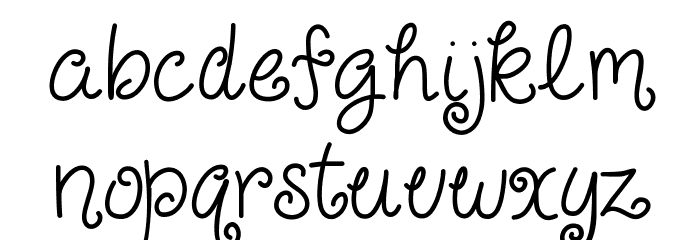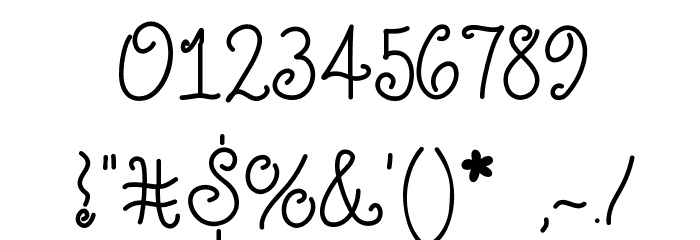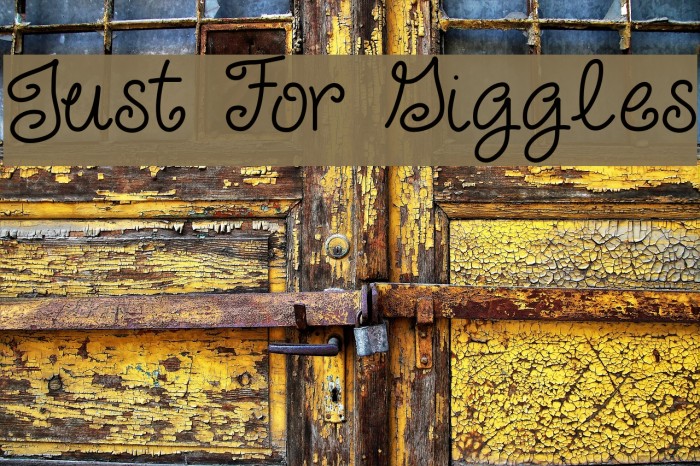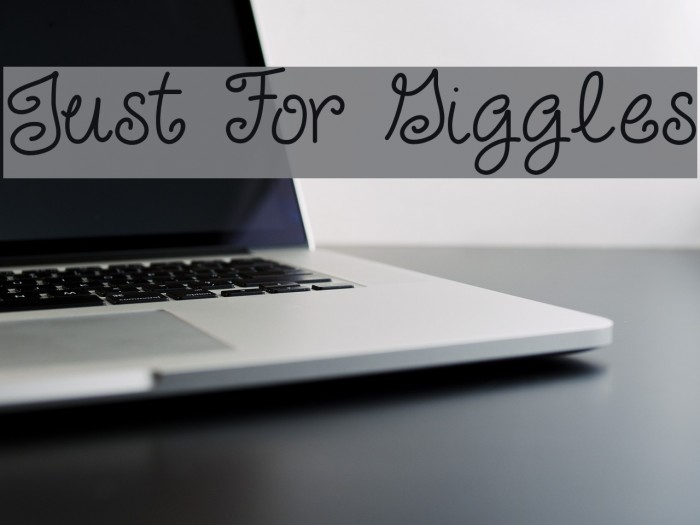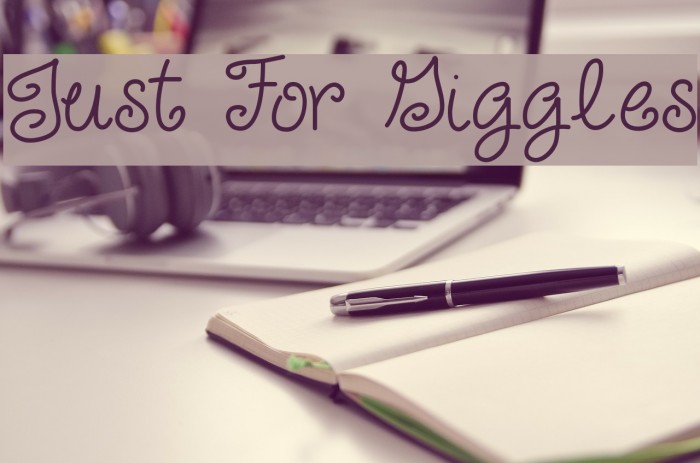
Just For Giggles Font
This playful and whimsical font features a handwritten style with curly and looping strokes, giving it a lively and informal appearance. The characters are well-spaced, ensuring readability while maintaining a fun aesthetic. The uppercase letters are bold and expressive, while the lowercase letters maintain a consistent flow with charming embellishments. Numbers and special characters are designed to match the overall playful theme, making this font suitable for creative and lighthearted projects.
A playful, handwritten font with curly, looping strokes and a whimsical style.
- Proposed Projects: Ideal for children's books, greeting cards, playful branding, and creative invitations.
- Use Case: Logos, Invitations, Greeting Cards